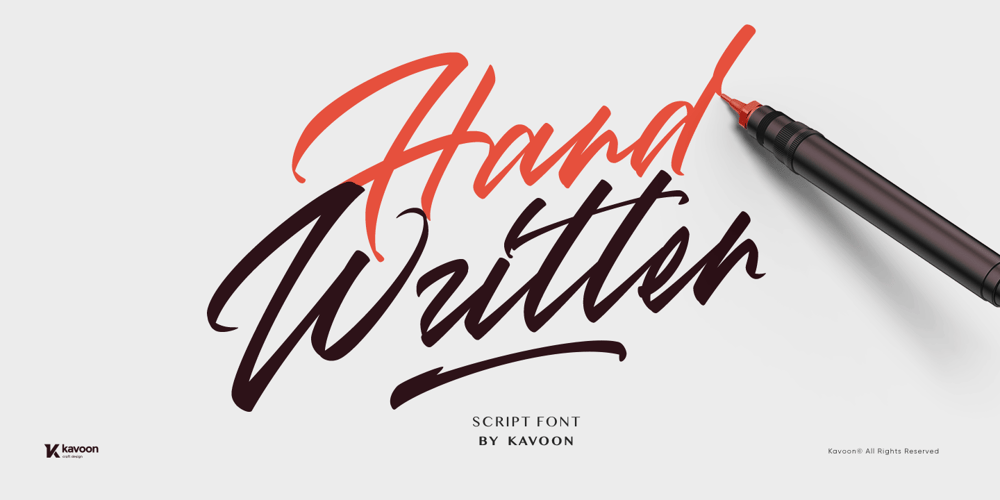
Jericho Font Family was designed by Anton Didenko and published by Kavoon. Jericho contains 1 styles and family package options. Introducing Jericho! A rustic, dapper handwritten font with a personal charm. With quick dry strokes and a signature style, Jericho is perfect for branding projects, homeware designs, product packaging – or simply as a stylish text overlay to any background image.You can activate Ligature and Alternates in the OpenType panel to make these two styles. It also has many alternatives and underlines that make your text and design more interesting.